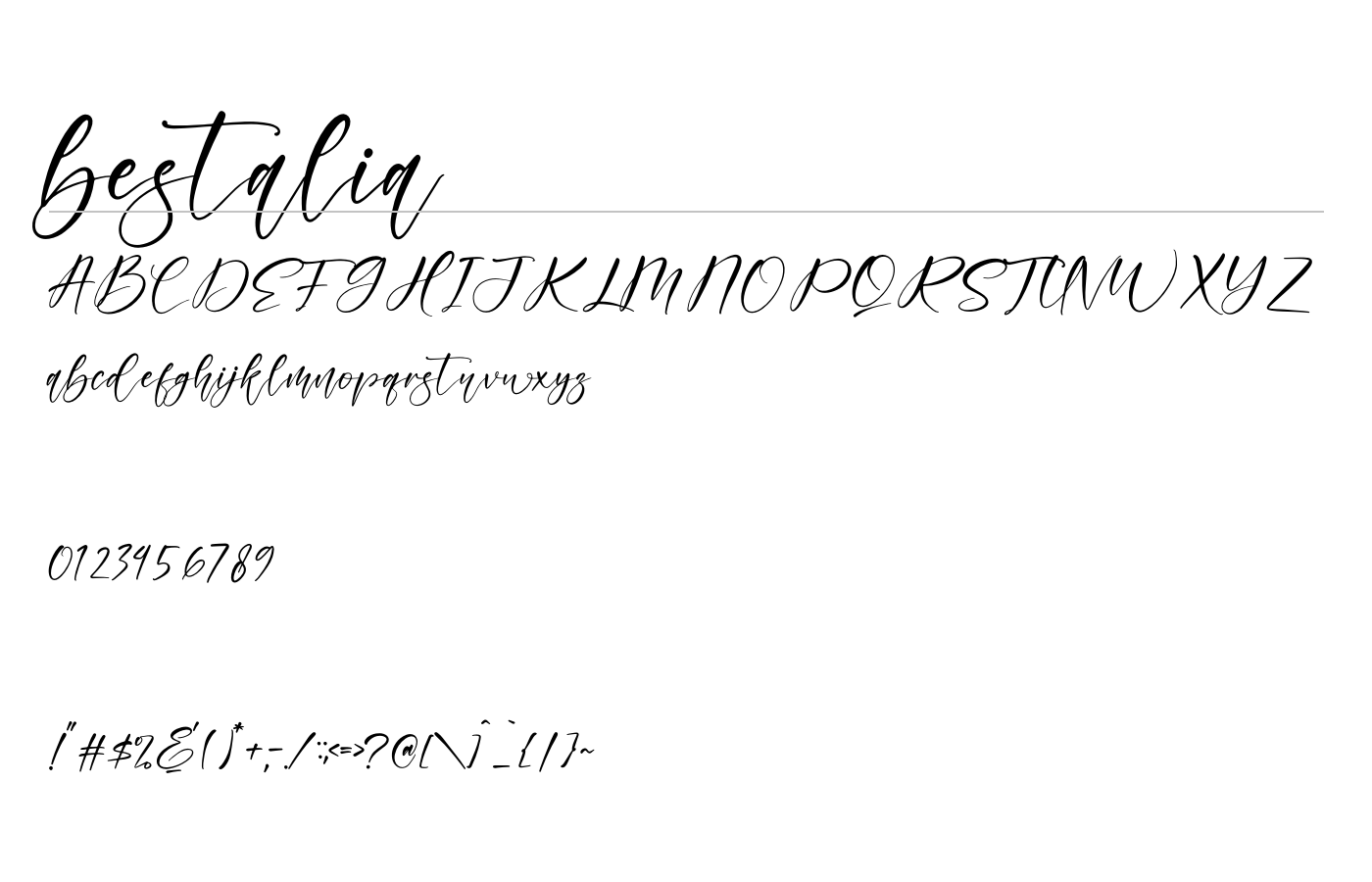
Bestalia is a delicate and elegant script font featuring thin, flowing strokes that mimic natural handwriting with a refined, calligraphic style. Its graceful letterforms and airy spacing make it perfect for luxury branding, wedding invitations, or sophisticated editorial designs where a personal, stylish touch is desired.
bestalia Font
About bestalia Font